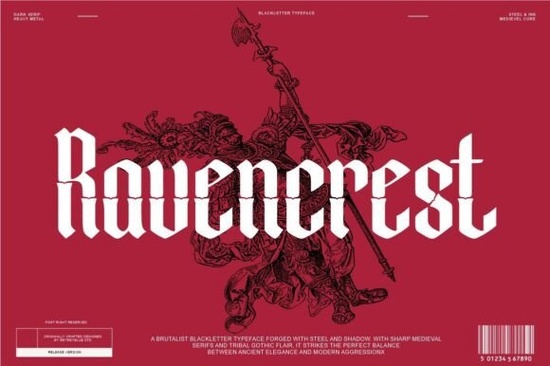
If you're looking for a blackletter font that feels both ancient and alive something with the weight of a medieval manuscript but the clarity needed for modern design Ravencrest Font fits naturally into your workflow. It’s not just another Old English revival; it’s a thoughtfully redrawn blackletter typeface built for real use: logos, apparel, book covers, game assets, and even tattoo sketches. Designed with care for spacing, language support, and screen-to-print consistency, it bridges gothic tradition and today’s creative needs without sacrificing legibility.
What makes Ravencrest different from other blackletter fonts?
Many blackletter fonts lean too far into historical accuracy or too far into stylized distortion making them hard to read or awkward to pair. Ravencrest avoids both pitfalls. Its sharp angles and dramatic stroke contrast come from authentic Gothic lettering traditions, but each glyph has been adjusted for balanced rhythm and clean rendering at small sizes. You’ll notice tighter kerning on common letter pairs (like “AV” or “To”), consistent x-height across lowercase forms, and carefully shaped terminals that prevent visual clutter. Unlike some Fraktur or calligraphic blackletter fonts, Ravencrest includes full lowercase characters not just ornamental capitals so it works well in longer headlines or short brand statements.
Where does it work best?
This is a display font first, so think impact over body text. It shines where presence matters: band logos (especially heavy metal or dark folk), fantasy novel titles, gaming UI headers, medieval-themed packaging, and streetwear graphics. Because it supports multiple languages including extended Latin characters it’s practical for international POD sellers or designers working with European clients. Crafters using Cricut or Silhouette machines will appreciate the clean vector outlines in both OTF and TTF formats, and the high-contrast shapes cut cleanly on vinyl or heat transfer material.
- Branding: Works especially well for gothic, dark fantasy, or heritage-inspired businesses think apothecary labels, craft brewery names, or indie game studios.
- Apparel & Merch: Holds up well on t-shirts, hoodies, and patches thanks to bold strokes and generous counters.
- Print projects: Posters, album covers, and book spines benefit from its strong vertical rhythm and commanding scale.
- Digital use: Renders clearly in web mockups and social media banners when used at 36pt or larger.
How does it compare to similar fonts on Creative Fabrica?
If you’ve browsed other blackletter options, you may have seen blackletter font collections with dozens of variants but few offer Ravencrest’s balance of authenticity and usability. Some lean heavily into Fraktur complexity, others simplify too much and lose their gothic character. Ravencrest sits in the middle: detailed enough to feel heraldic, structured enough to scale reliably. It also includes stylistic alternates for key letters (like a more angular “R” or a flourished “S”), giving you subtle customization without needing separate font files.
You’ll find it listed under Ravencrest Font on Creative Fabrica grouped with other blackletter fonts, but standing out for its multilingual support and thoughtful spacing. That means fewer manual fixes when switching between English, German, French, or Polish text layouts.
• Pair it with a neutral sans-serif (like Montserrat or Inter) for contrast avoid other decorative fonts unless you’re going for intentional maximalism.
• Use all-caps for maximum impact in logos or posters, but don’t shy away from mixed case in editorial or book title settings the lowercase letters are designed to hold their own.
For designers who regularly work with gothic, medieval, or dark fantasy themes and for small business owners building a distinct visual identity Ravencrest Font is a reliable, well-drawn option that avoids trend-chasing while still feeling fresh. It doesn’t try to be everything; it does one thing very well: deliver authoritative blackletter presence with modern practicality.